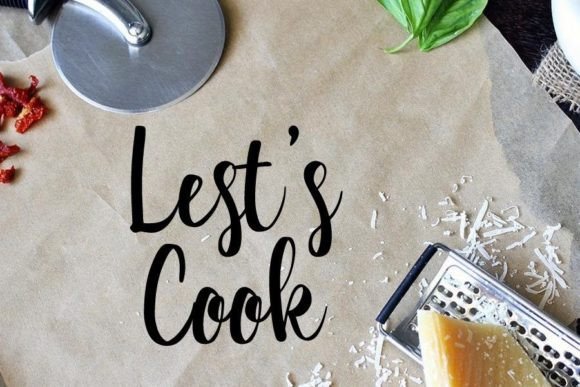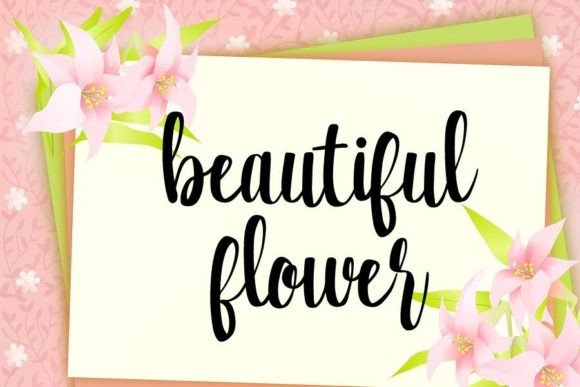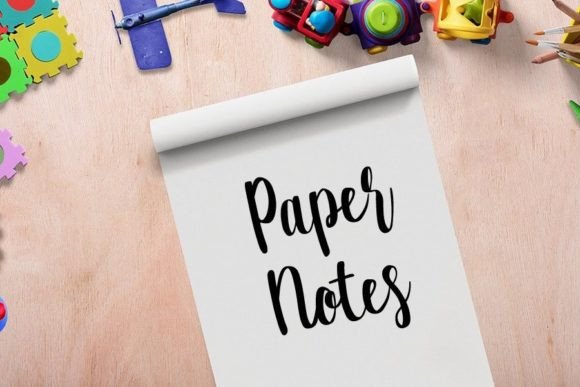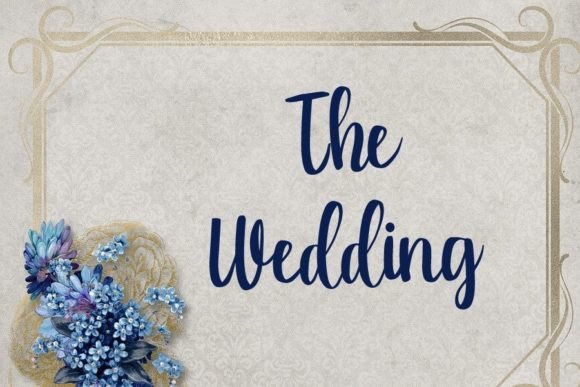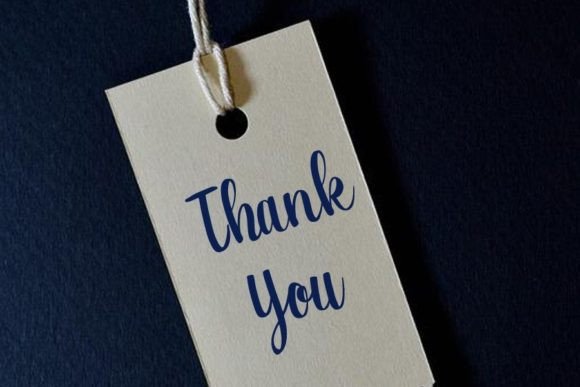
Introducing Billion Font: Elevate Your Designs with Fresh and Beautiful Typography
In the world of design, typography plays a crucial role in capturing the audience’s attention and conveying the message effectively. A good font can make all the difference in creating stunning visual content that stands out from the crowd. If you’re a designer, crafter, or business owner looking for a fresh and beautiful font to elevate your designs, look no further than Billion Font. In this article, we’ll explore the features and benefits of Billion Font and how it can take your designs to the next level.
What is Billion Font?
Billion Font is a modern and stylish font designed to meet the needs of designers, crafters, and businesses. This font is a fresh and beautiful addition to any design project, making it perfect for various applications such as YouTube banners, cover logo mockups, wedding invitations, ID cards, flyers, and crafts. With its unique and simple design, Billion Font is sure to grab attention and leave a lasting impression.
Key Features of Billion Font
- Fresh and Beautiful Design: Billion Font boasts a modern and stylish design that’s sure to elevate your designs.
- Versatile: This font is suitable for various design purposes, including YouTube banners, cover logo mockups, wedding invitations, ID cards, flyers, and crafts.
- Simple and Unique: Billion Font’s simple yet unique design makes it stand out from other fonts.
- Easily Readable: The font is designed to be easily readable, making it perfect for body text and headings.
Benefits of Using Billion Font
By using Billion Font in your designs, you can experience several benefits, including:
- Professional Look: Billion Font gives your designs a professional and polished look, making them perfect for business and personal projects.
- Increased Engagement: The font’s unique and stylish design is sure to grab attention and increase engagement with your audience.
In conclusion, Billion Font is a fresh and beautiful font that’s perfect for designers, crafters, and businesses looking to elevate their designs. With its unique and simple design, versatility, and ease of use, Billion Font is sure to become a go-to font in your design library. Whether you’re creating YouTube banners, cover logo mockups, wedding invitations, ID cards, flyers, or crafts, Billion Font is the perfect choice. So why wait? Download Billion Font today and take your designs to the next level!